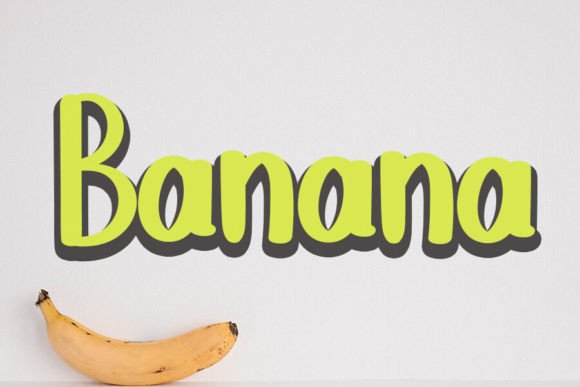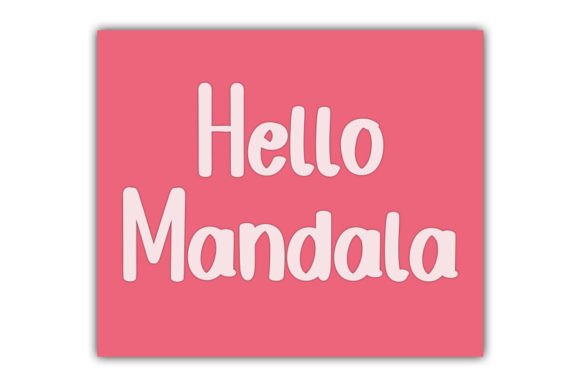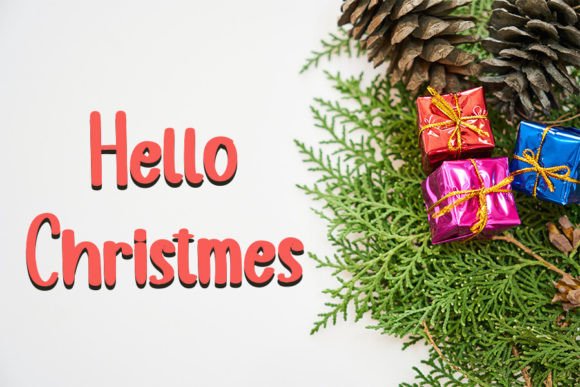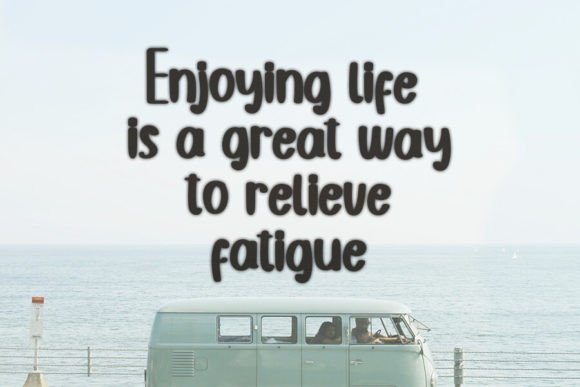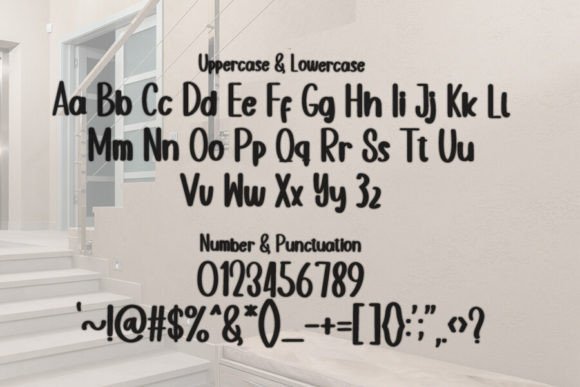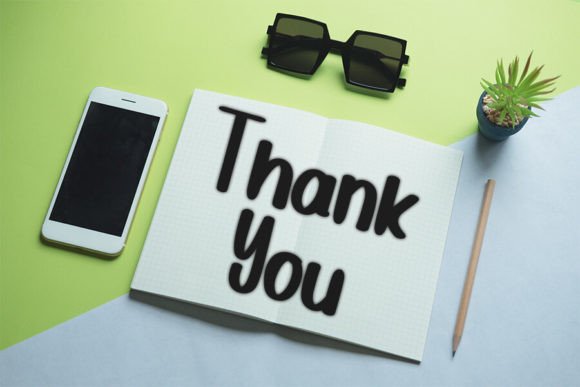
Baby Birthday Font: A Modern Display Design for Creative Projects
Are you looking for a beautiful and versatile font to make your designs stand out? Look no further than the Baby Birthday font, a modern display design that is perfect for a wide range of creative projects. This stunning font features a casual and elegant style with swashes, making it ideal for designers and crafters who want to add a touch of sophistication to their work.
Key Features of Baby Birthday Font
The Baby Birthday font comes with a range of exciting features that make it perfect for various design applications. Some of its key features include:
- Modern Display Design: The Baby Birthday font boasts a modern and sleek design that is sure to grab attention. Its clean lines and elegant curves make it perfect for headlines, titles, and other display text.
- Regular Style: The font comes in a regular style, making it easy to read and use for a wide range of design projects.
- Swashes: The Baby Birthday font features beautiful swashes that add a touch of elegance and sophistication to your designs.
Use Cases for Baby Birthday Font
The Baby Birthday font is incredibly versatile and can be used for a wide range of design projects, including:
- Logos: Create stunning logos for your business or brand with the Baby Birthday font.
- Product Packaging: Use the font to create eye-catching product packaging that stands out on store shelves.
- Wedding Invitations: Add a touch of elegance to your wedding invitations with the Baby Birthday font.
- Branding: Use the font to create a consistent brand identity across all your marketing materials.
- Headlines: Use the font to create attention-grabbing headlines for your blog posts, articles, and other written content.
- Signage: Create stunning signage for your business or event with the Baby Birthday font.
- Labels: Use the font to create custom labels for your products or gifts.
- Signatures: Add a touch of elegance to your email signatures or business cards with the Baby Birthday font.
- Book Covers: Use the font to create eye-catching book covers that grab attention.
- Posters: Create stunning posters for your business or event with the Baby Birthday font.
- Quotes: Use the font to create inspiring quotes that can be shared on social media or used in design projects.
The Baby Birthday font is a stunning modern display design that is perfect for designers and crafters who want to add a touch of elegance and sophistication to their work. With its casual and beautiful style, swashes, and PUA Unicode encoding, this font is versatile and easy to use. Whether you’re creating logos, product packaging, wedding invitations, or other design projects, the Baby Birthday font is sure to impress.